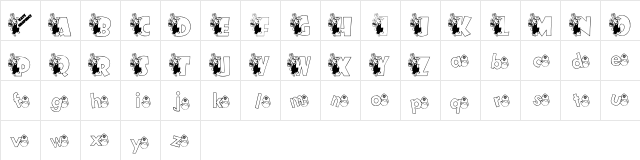
KG BUNBUN Regular
Design Context for KG BUNBUN Typeface
KG BUNBUN is a composed and adaptable typeface that performs quietly and consistently across a wide range of design contexts.